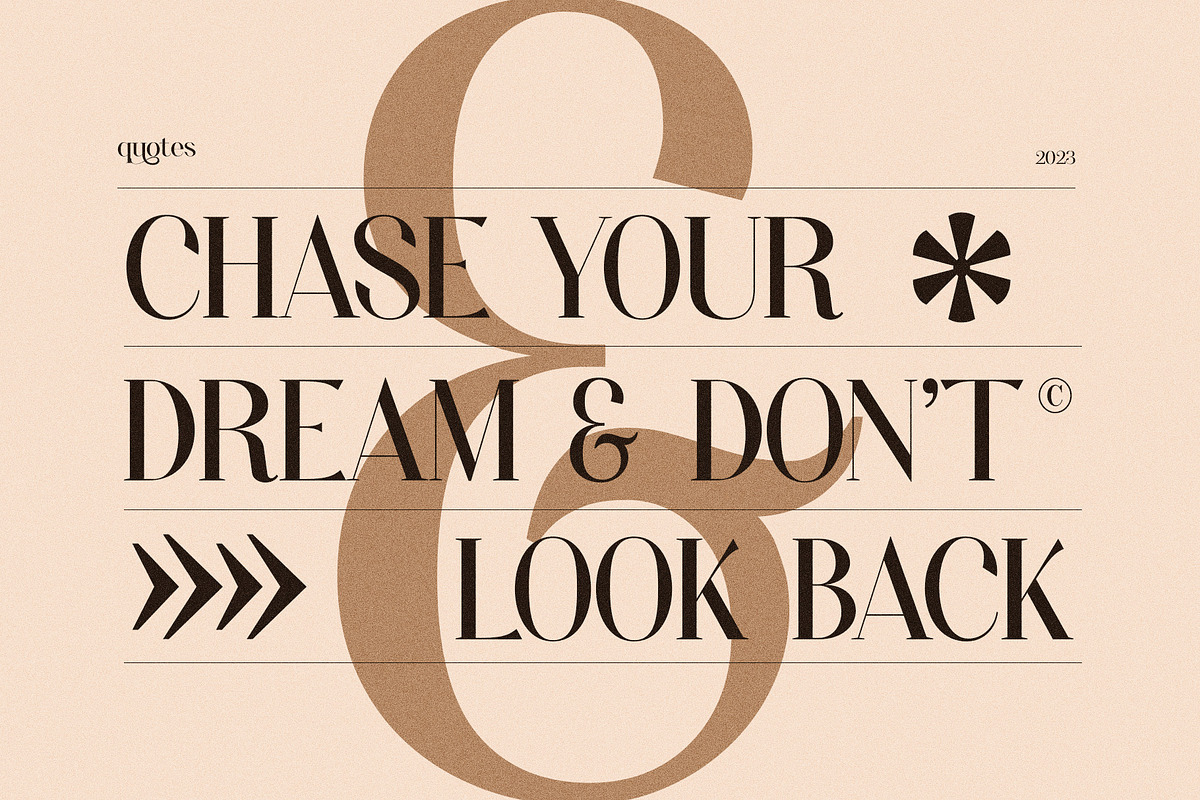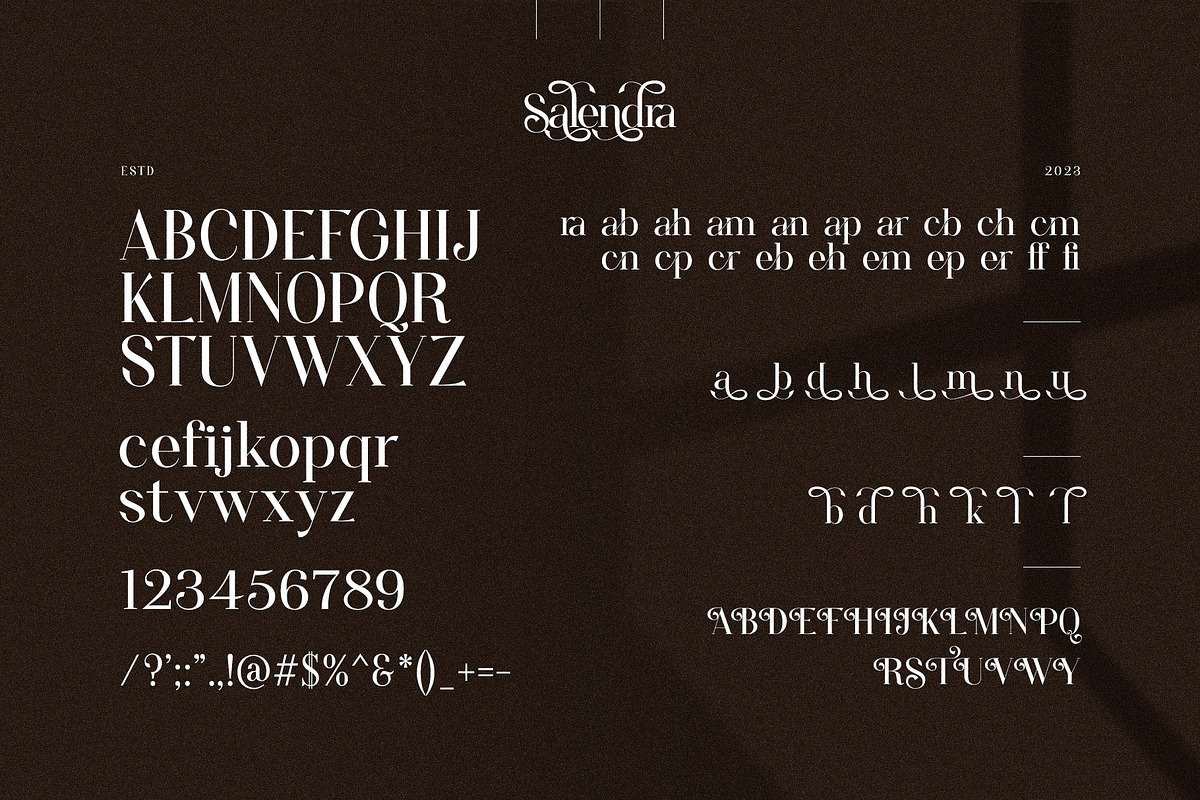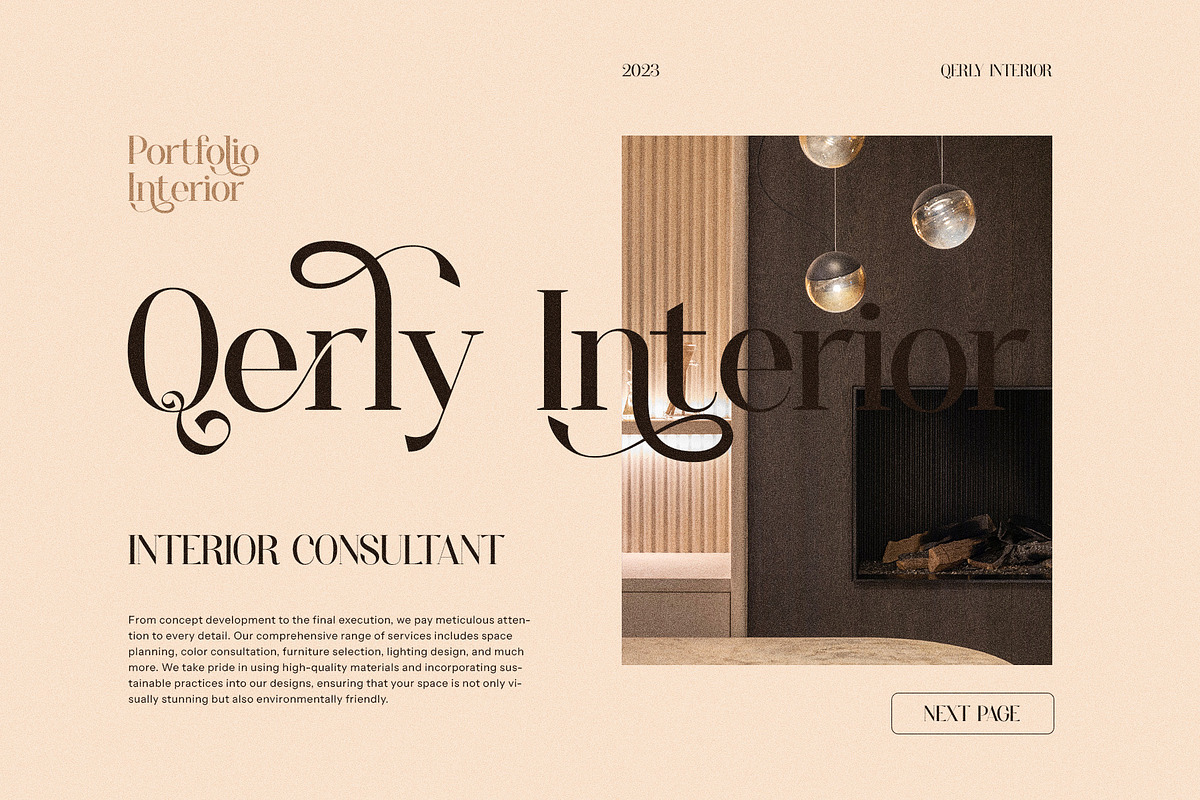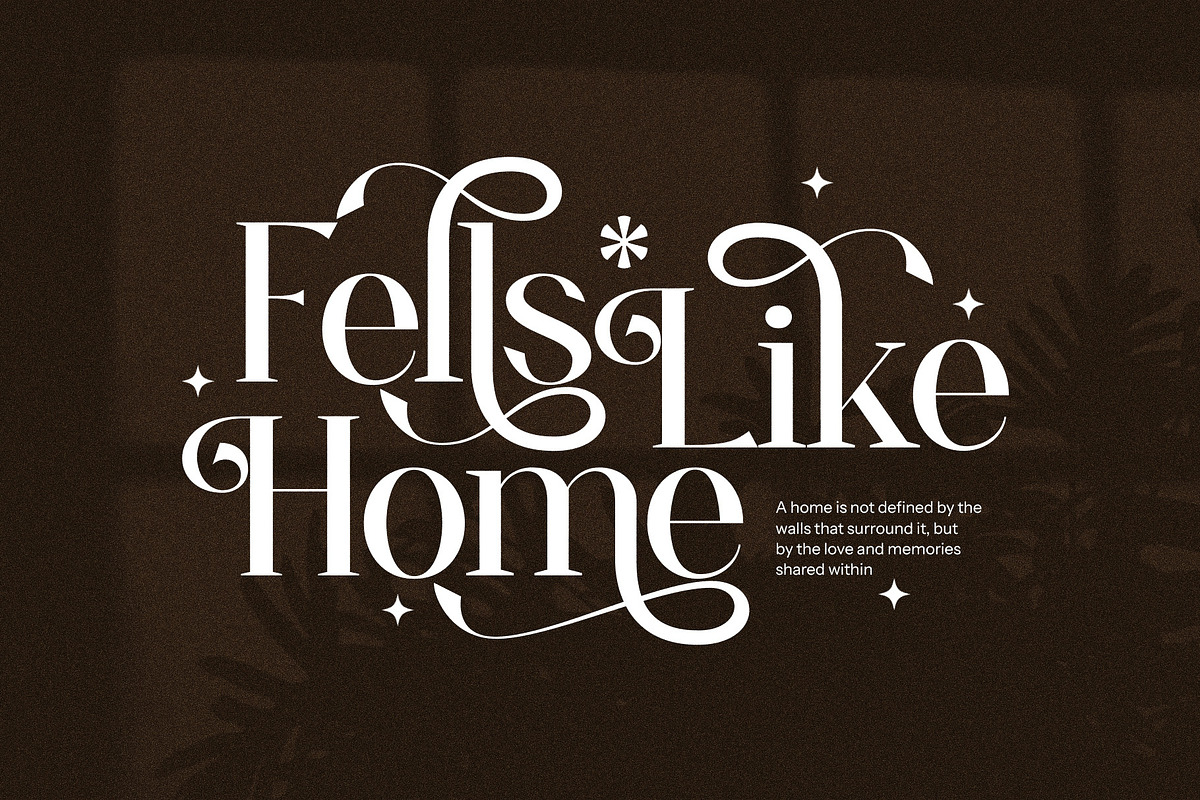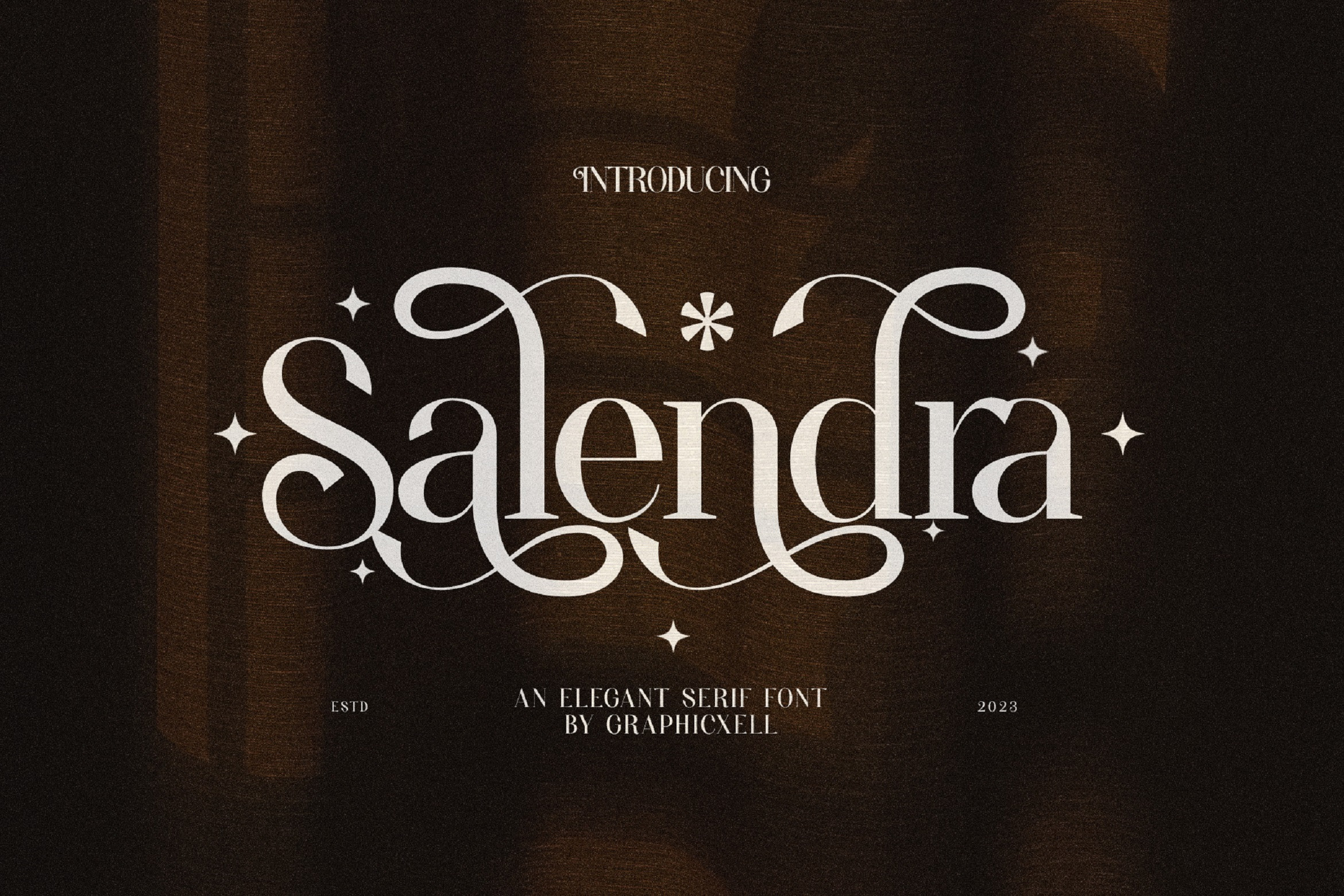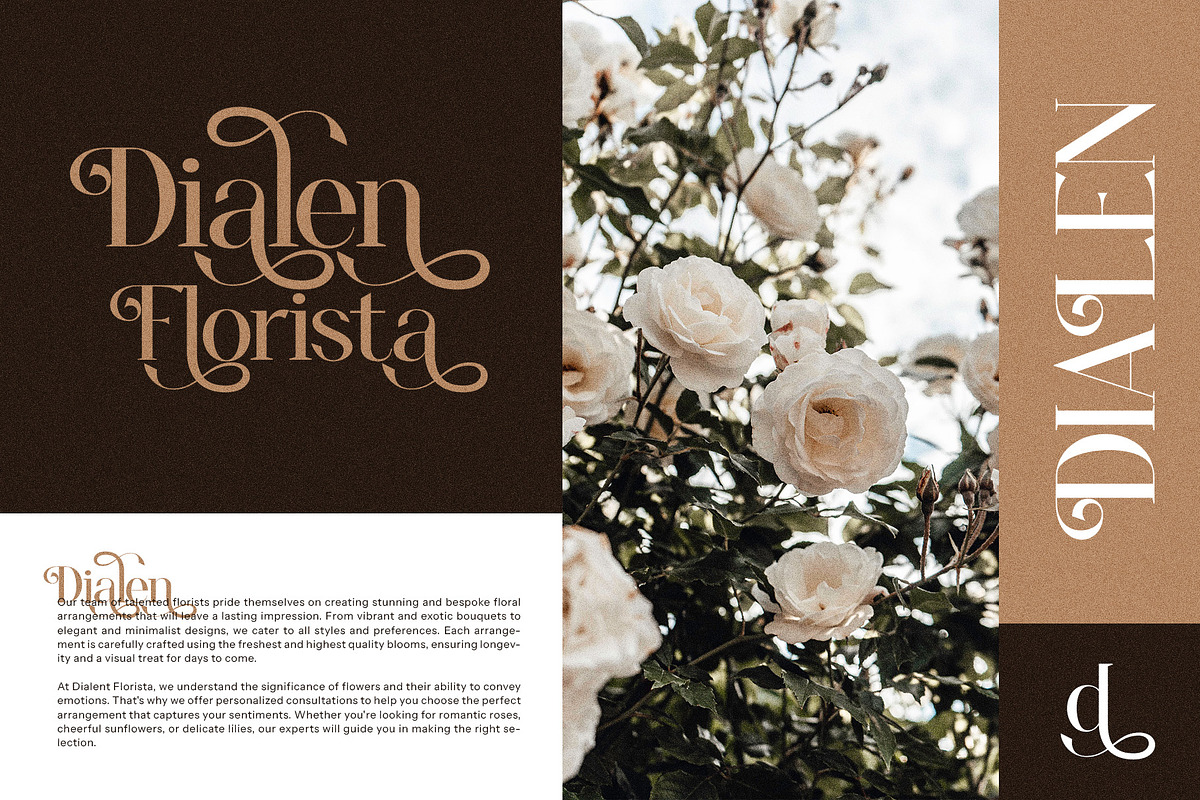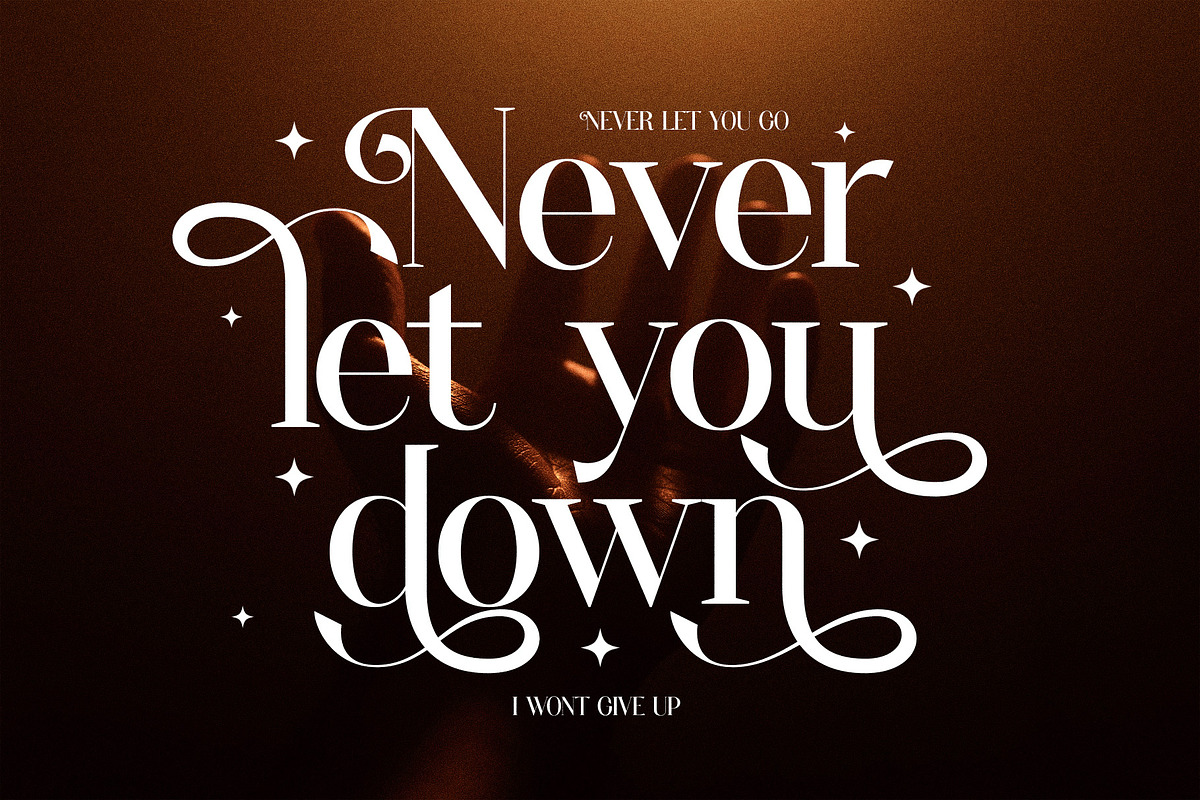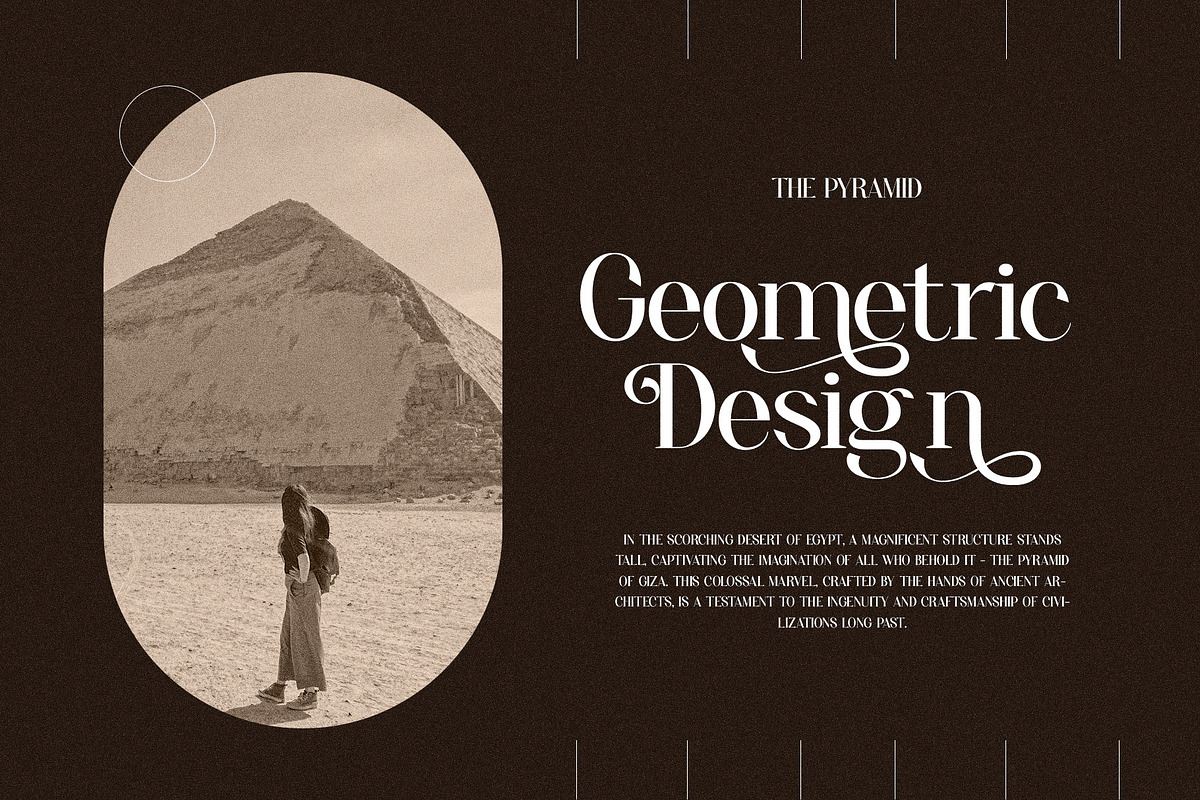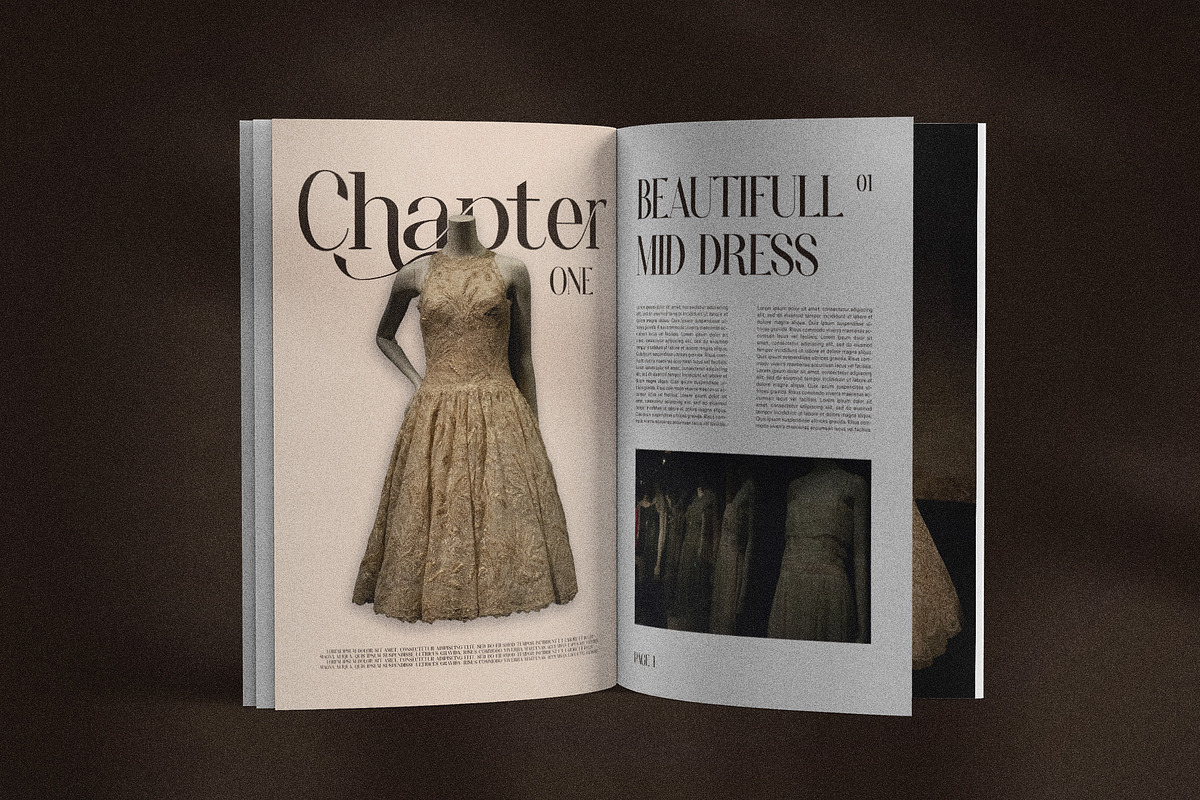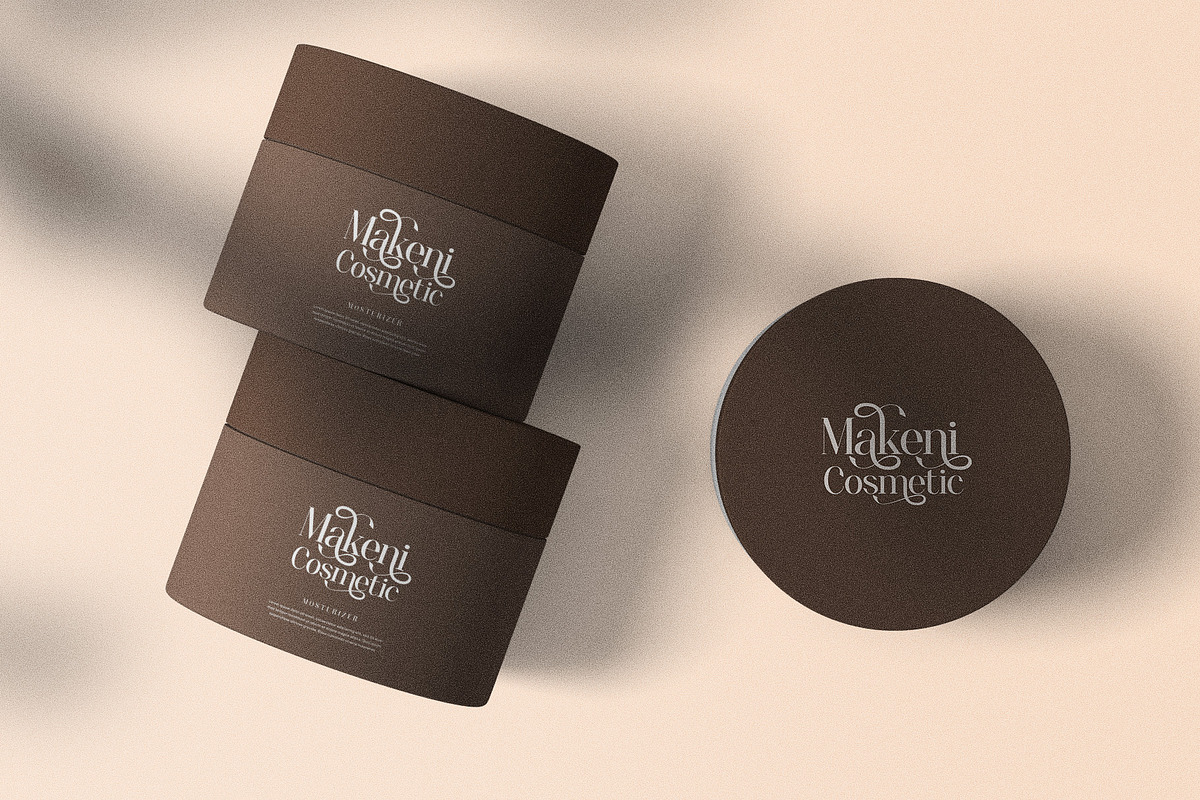
Salendra Elegant Ligature Serif Font
Salendra Elegant Ligature Serif Font is a kind of serif font that promotes a calligraphic style. In fact, the ligature makes it look more like calligraphy. The ligature is crafted in such a way that this font looks precise. It also comes with striking counter strokes that give an elegant touch. The sexy snaking lines of the letters exudes a special beauty. In addition, the thickening and thinning lines form the letters smoothly. Because of that, this elegant serif font is perfect for various design needs such as photography, wedding designs, invitations, or any other projects. What’s next is that its complexity doesn’t reduce the level of readability. So, your message will be conveyed in an eccentric style. Whether you want to use it as a plain text or to accompany your design, Salendra Elegant Ligature Serif Font gives the best. If you are curious, try it now!